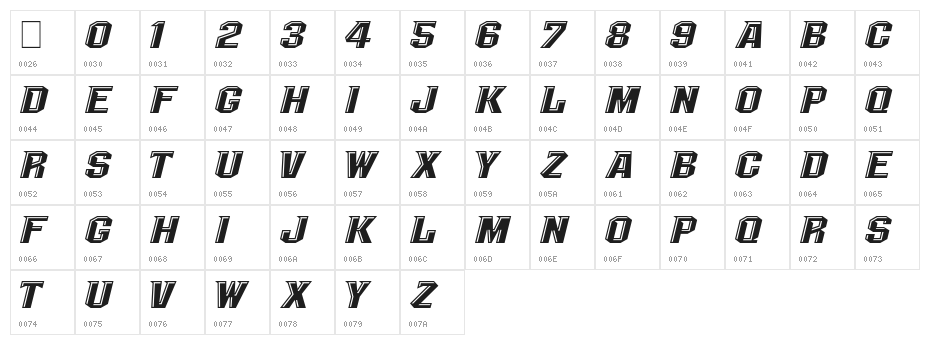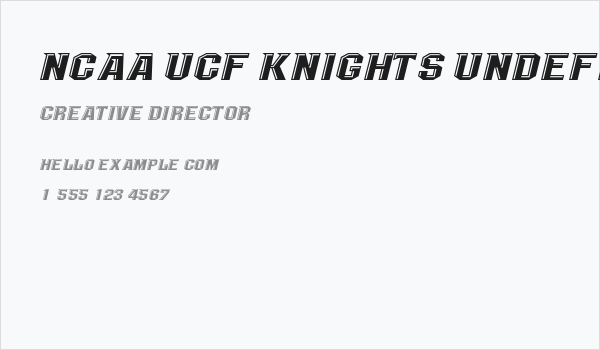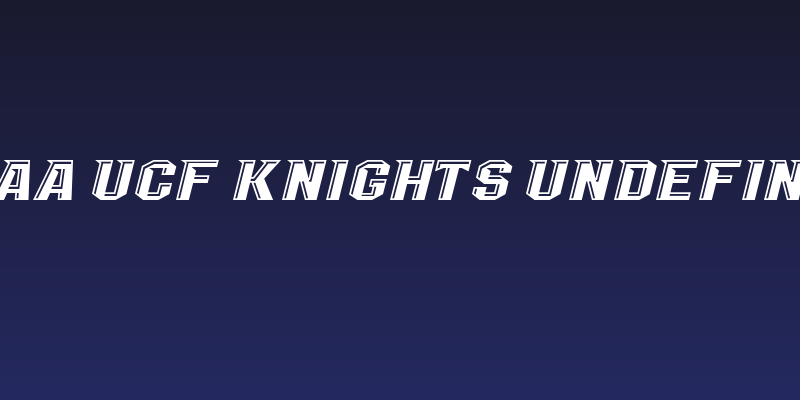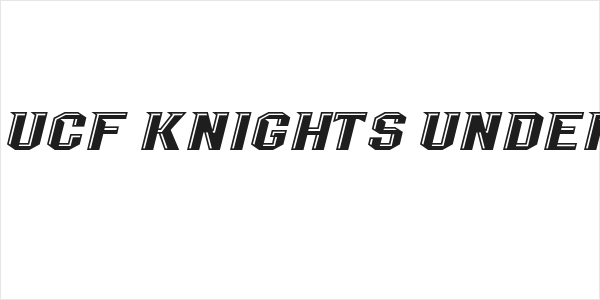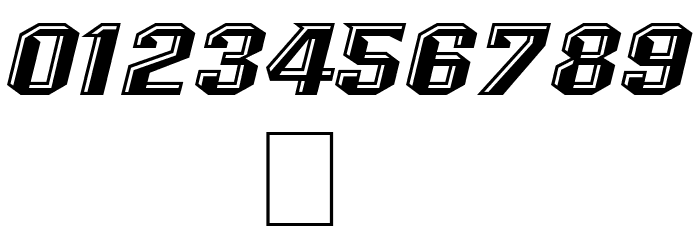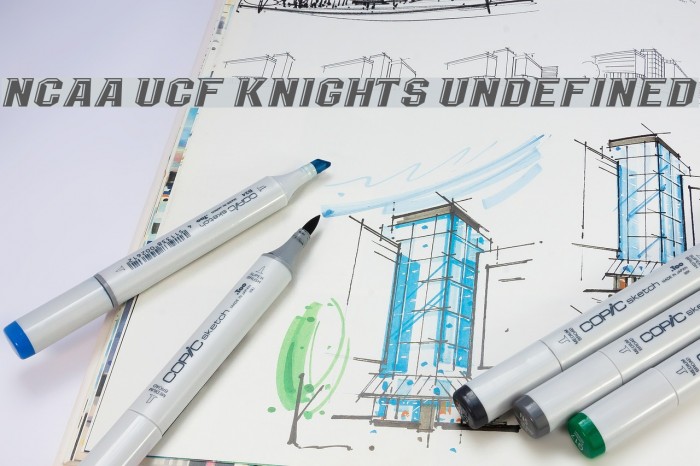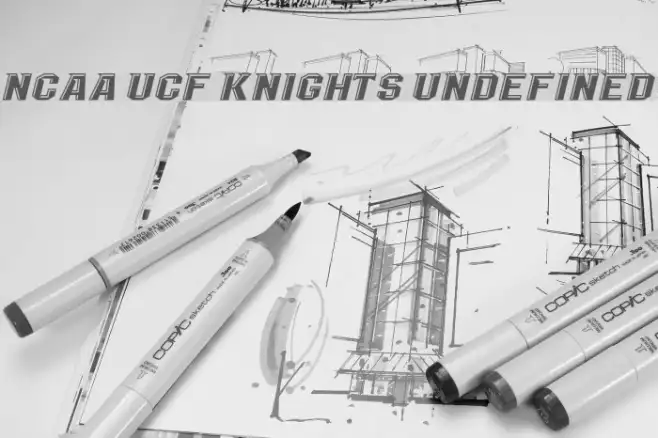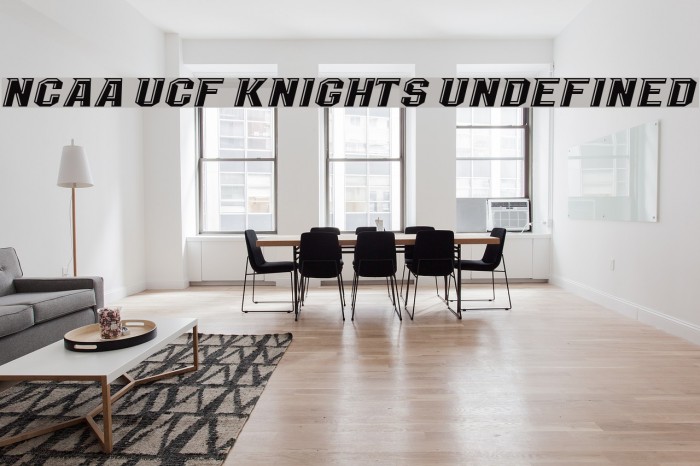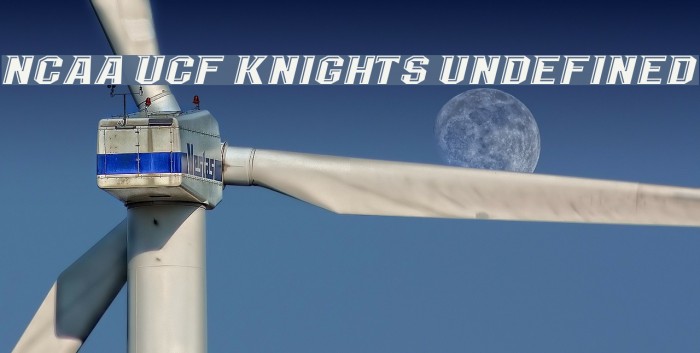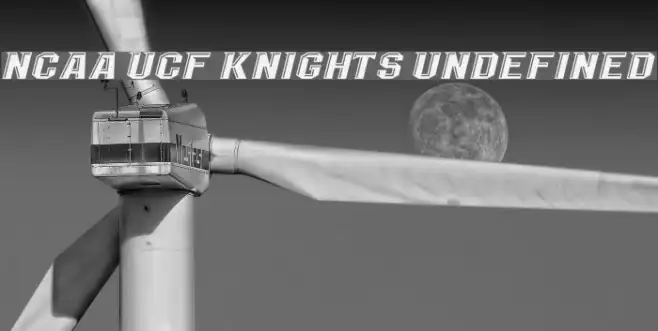
NCAA UCF Knights Undefined Font
NCAA UCF Knights Undefined Description
This font features a bold, athletic style with a strong presence, characterized by its blocky, angular letterforms and a distinct shadow effect that adds depth and dimension. The uppercase letters are uniform in height, creating a cohesive look across the alphabet. The numerals follow the same bold, angular design, ensuring consistency throughout. This font is designed to convey strength and energy, making it ideal for sports-related themes. The shadow effect gives it a three-dimensional appearance, enhancing its visual impact.
| Use Case | Logos, Headlines |
| Proposed Projects | Ideal for sports team branding, athletic event posters, merchandise, and dynamic logo designs. |